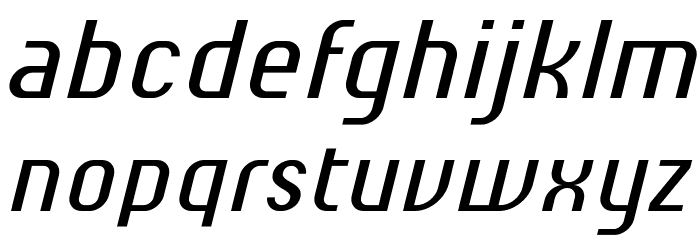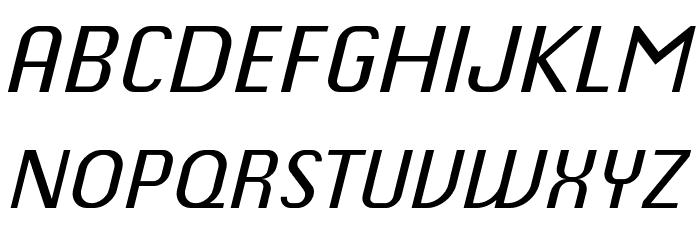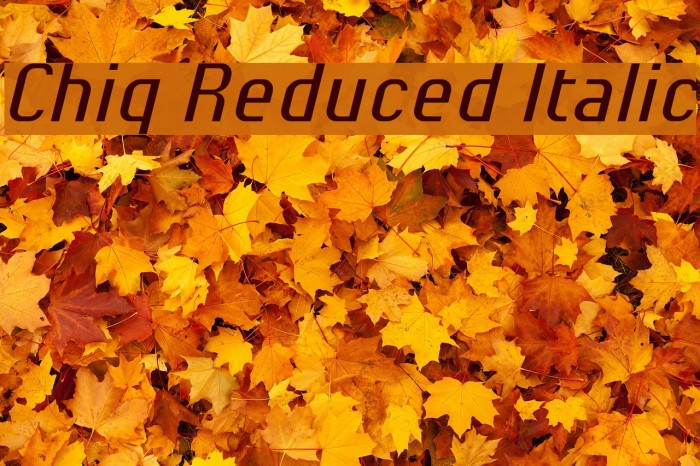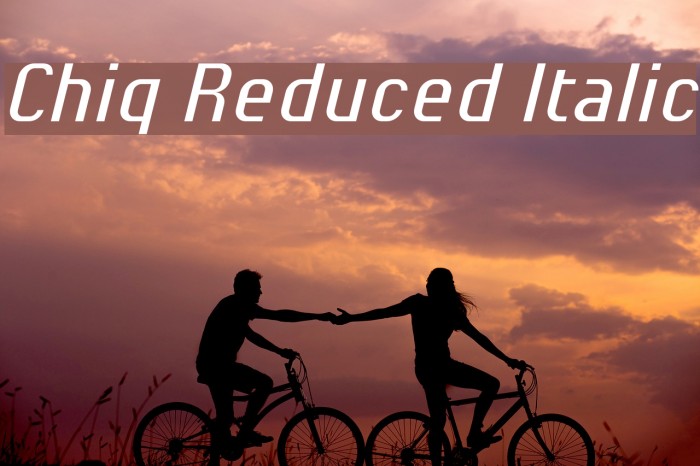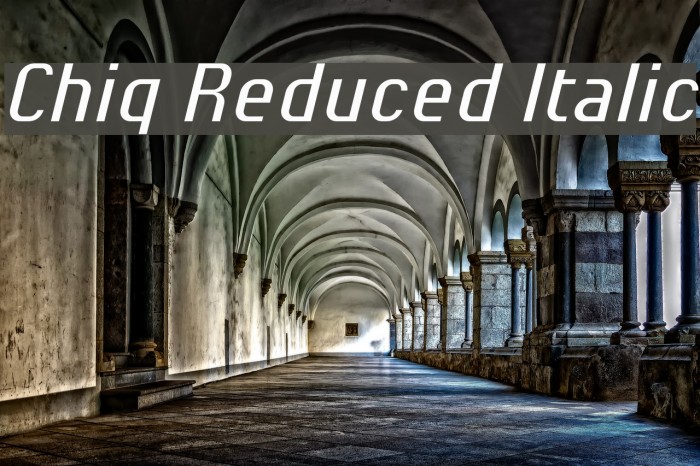
Chiq Reduced Italic Font
This font features a sleek and modern italic style with a slightly condensed form. The characters are designed with a clean and streamlined appearance, emphasizing a forward-leaning posture that conveys motion and dynamism. The strokes are consistent in weight, providing a uniform look across all characters. The font maintains a balance between readability and style, making it suitable for various applications where a contemporary and sophisticated look is desired. The overall design is minimalistic yet impactful, with a subtle elegance that enhances its versatility.
A sleek, modern italic font with a slightly condensed form and consistent stroke weight.
- Proposed Projects: Ideal for branding, advertising, and editorial design projects where a modern and dynamic look is needed.
- Use Case: Headlines, Logos, Branding